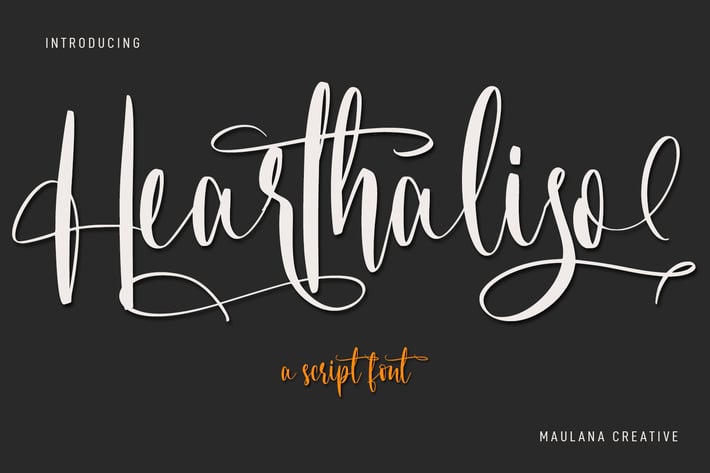
Hearthaliso Elegant Script Font
Hearthaliso is a fancy flourish script font. With thin high contrast stroke, fun character with a bit of ligatures and alternates. To give you an extra creative work. Hearthaliso font support multilingual more than 100+ language. This font is good for logo design, Social media, Movie Titles, Books Titles, a short text even a long text letter and good for your secondary text font with sans or serif. Make a stunning work with Hearthaliso font.